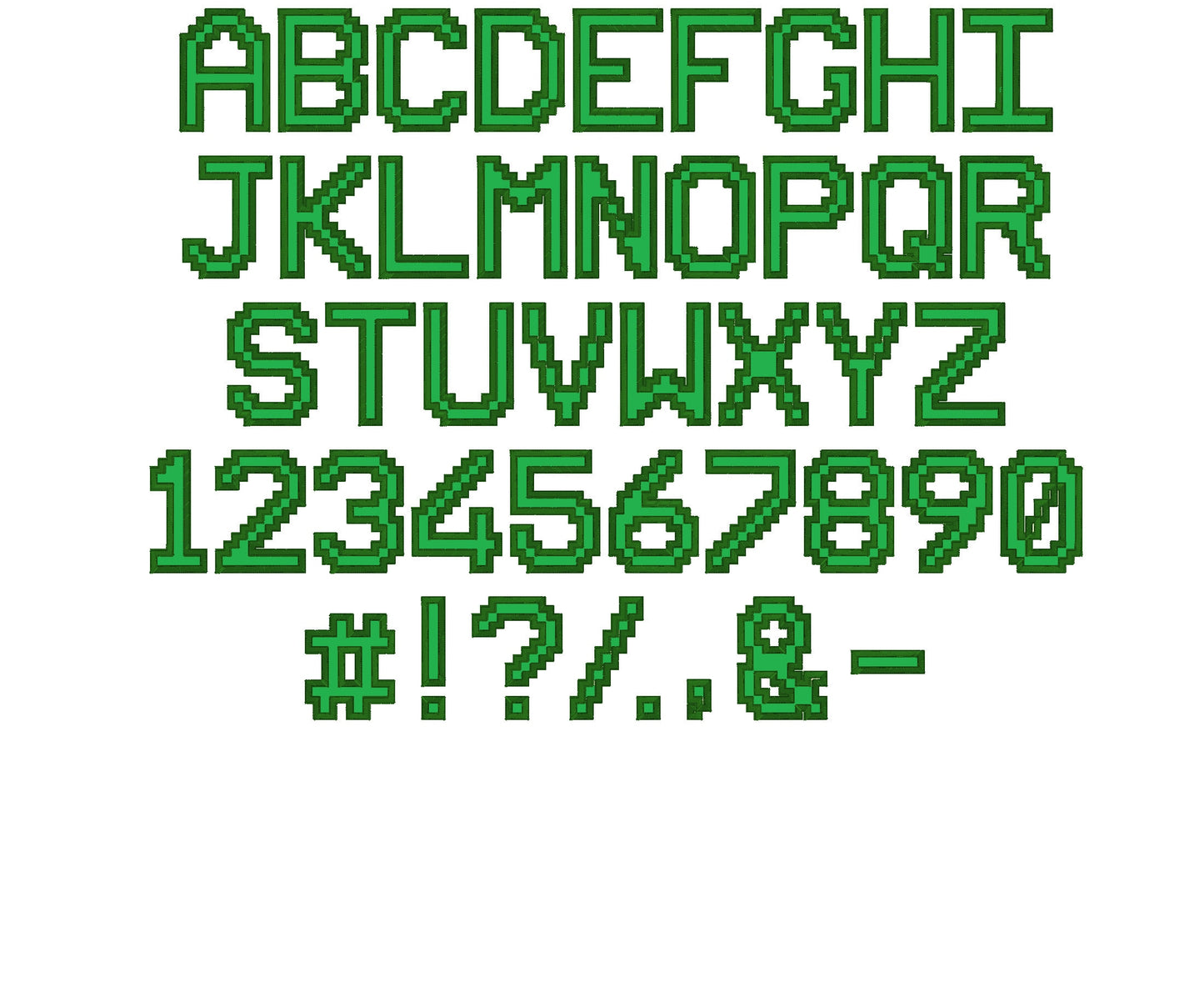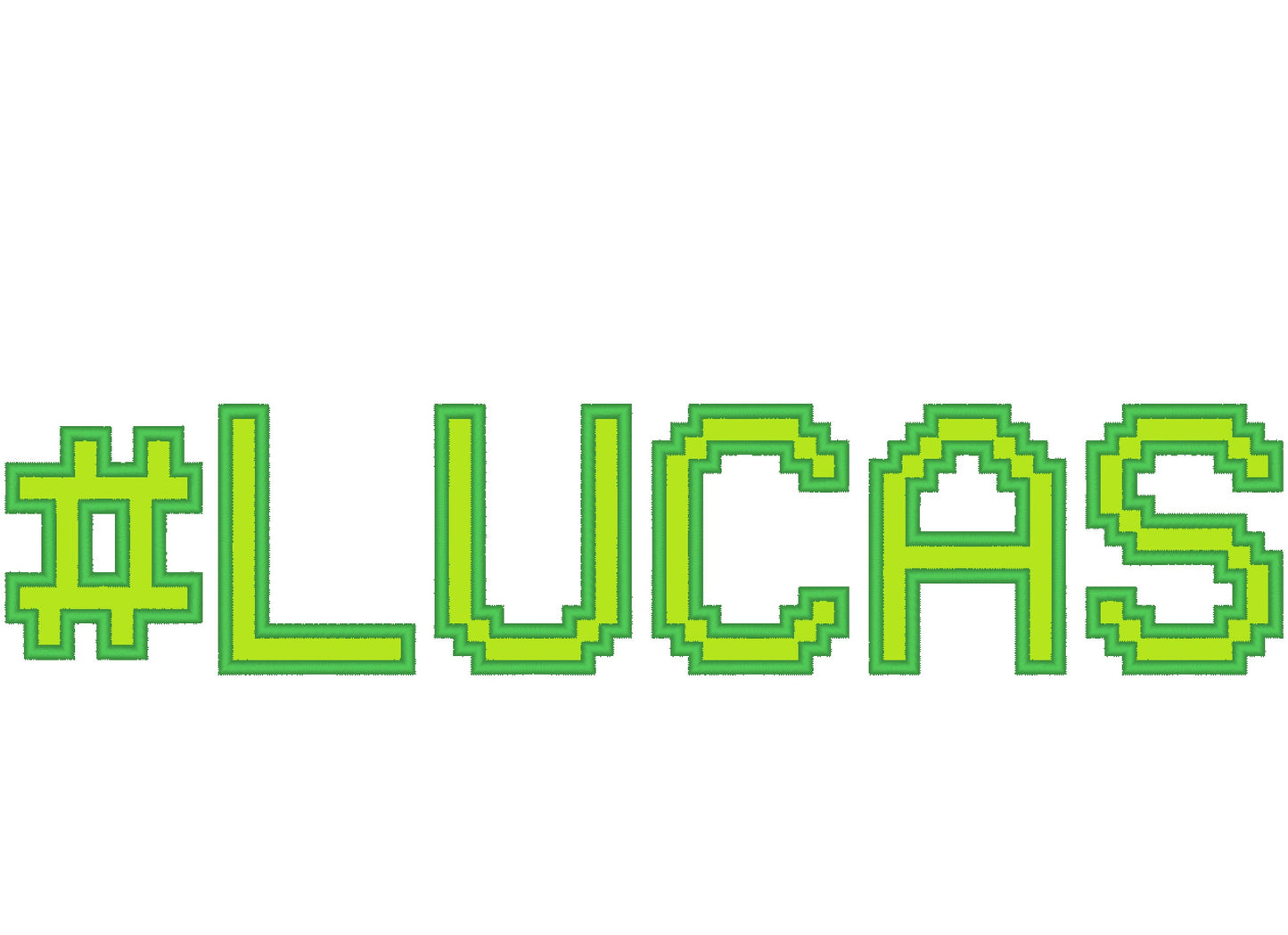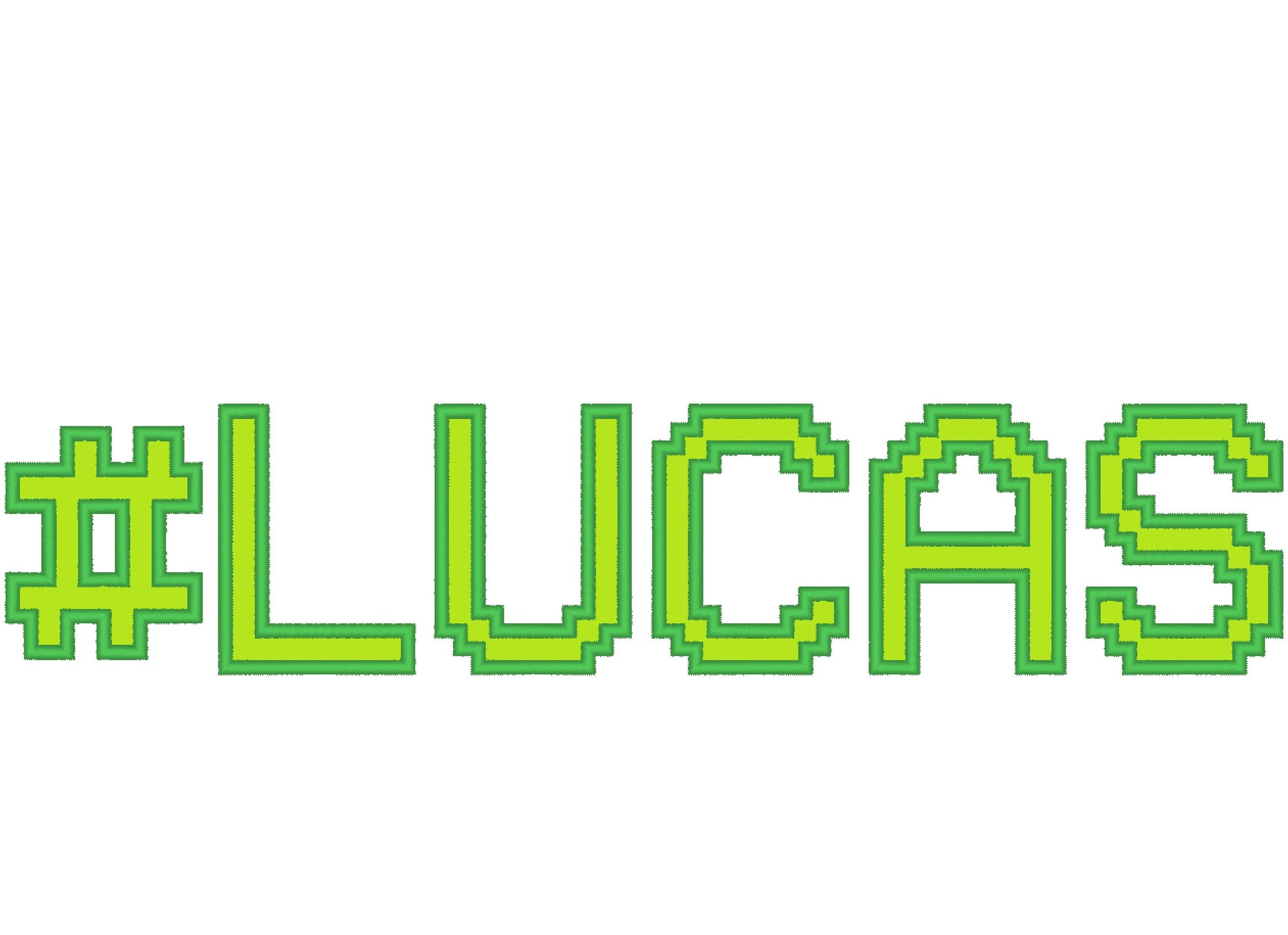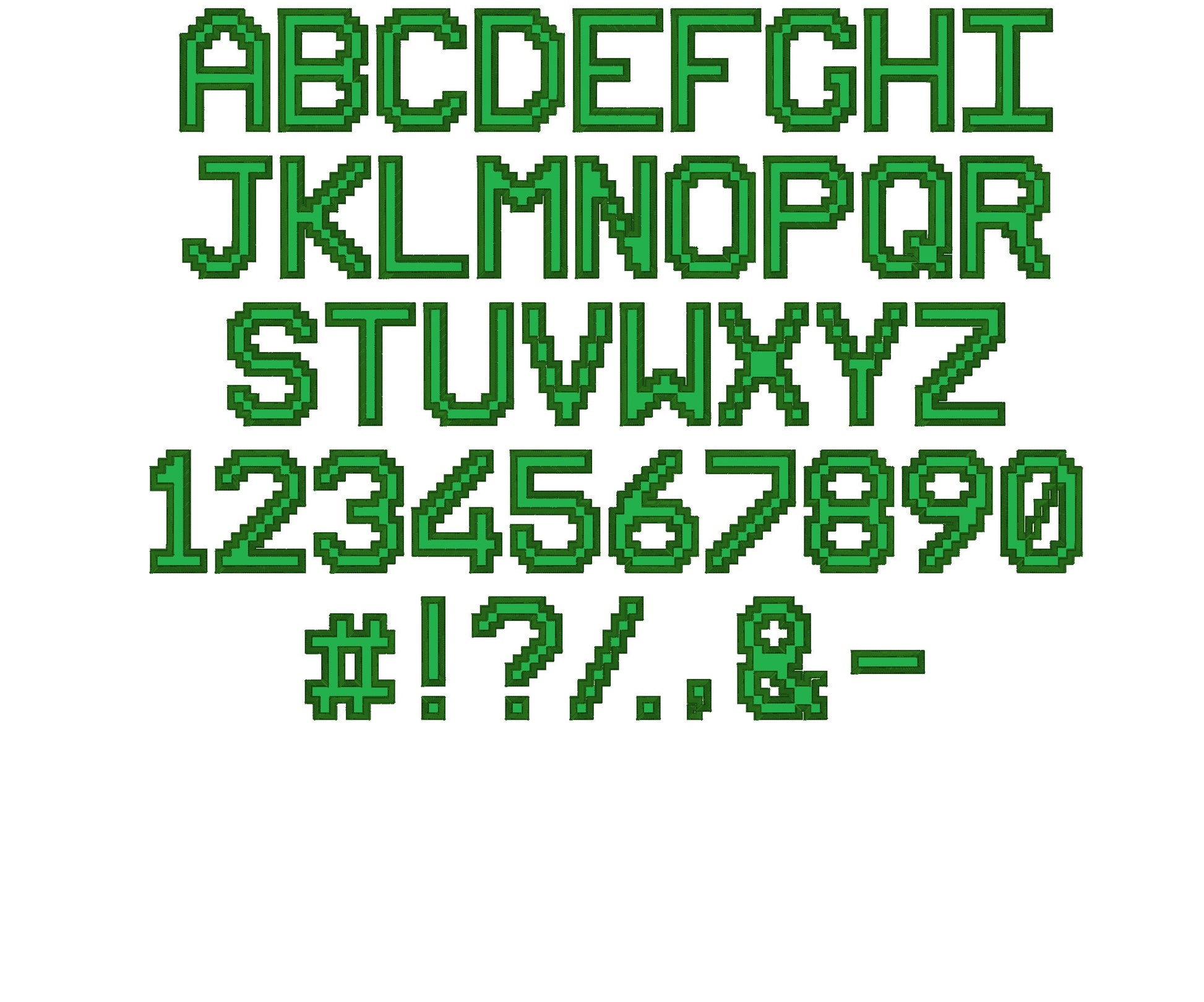
Miner Bricks Pixel Font Applique
Each letter is built from square bricks in applique. The letters come in eight sizes: 1.5, 2, 2.6, 3, 3.5, 4, 4.5 and 5 inches.
- Pixel brick applique font
- Uppercase A-Z, numbers 0-9, punctuation
- 8 sizes, 1.5 to 5 in